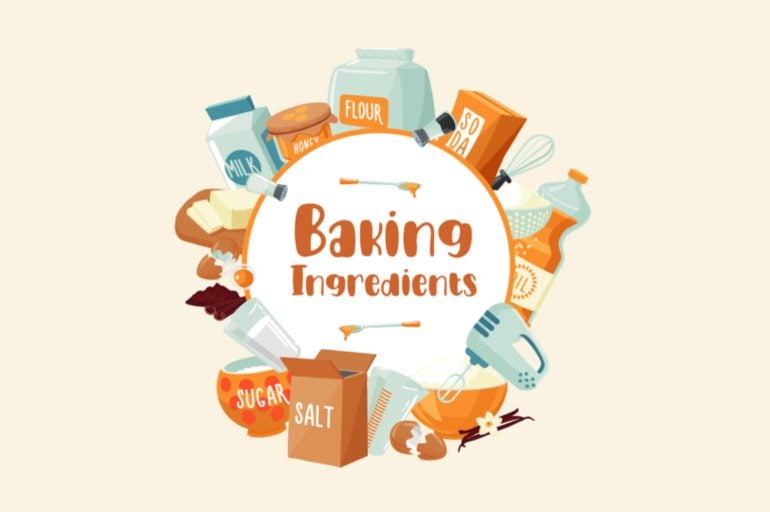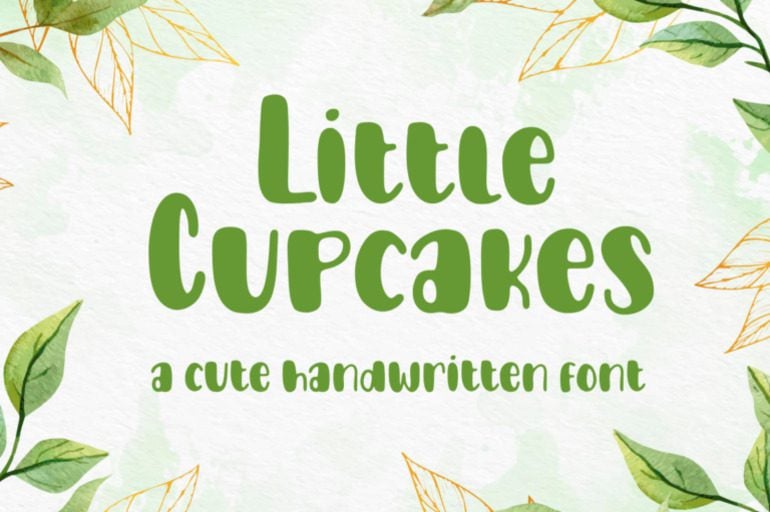
Little Font
Little Cupcakes is a fun display Font font, this font Is perfect for lproduct packaging, product designs, label, photography, watermark, special events or anything.